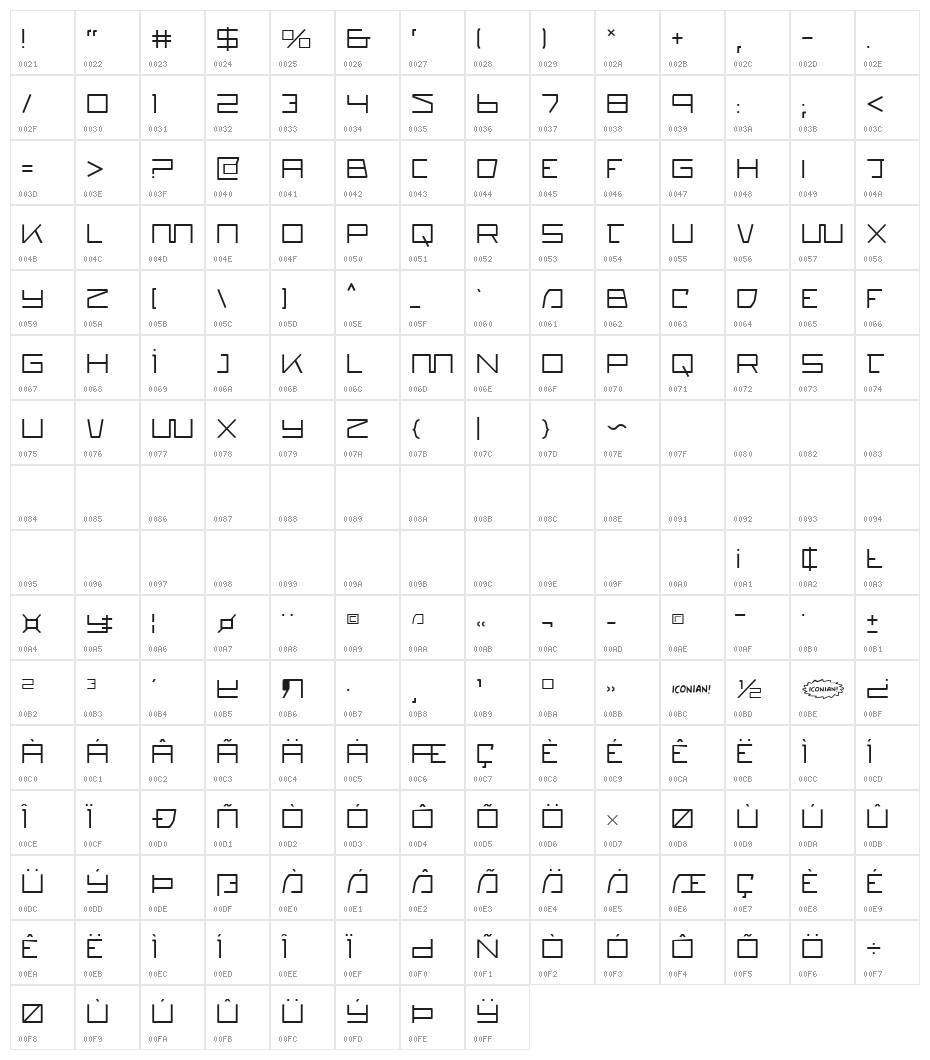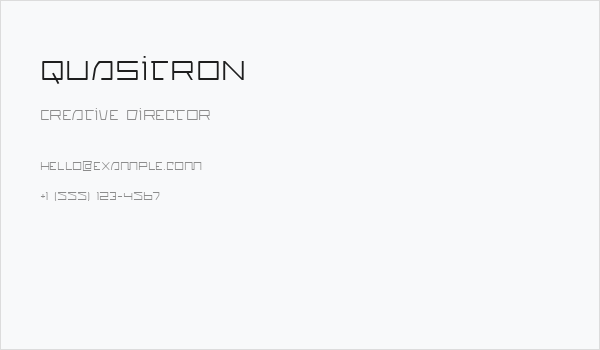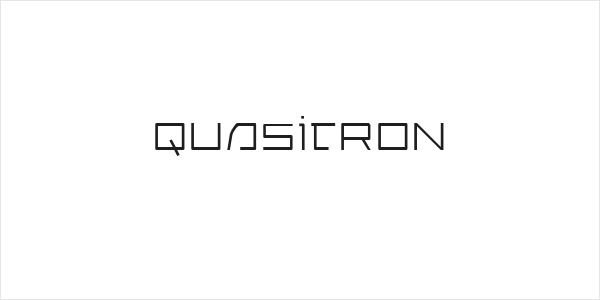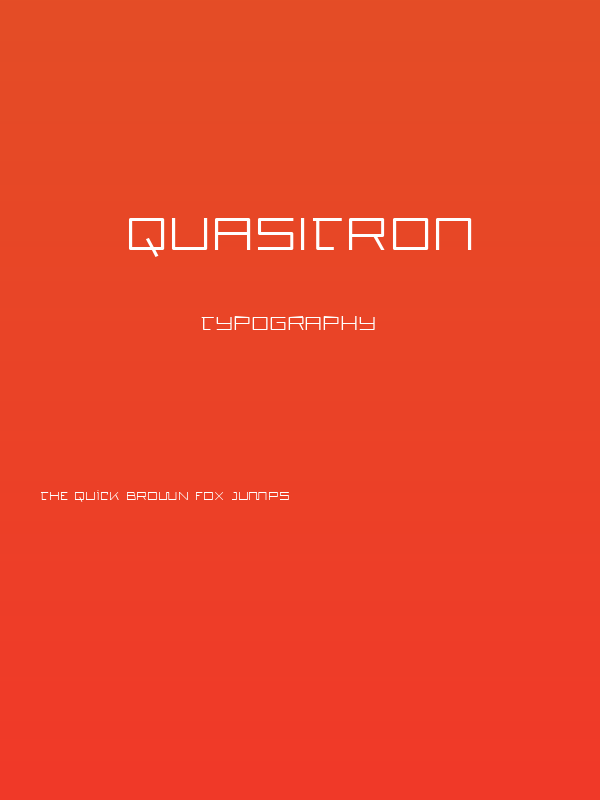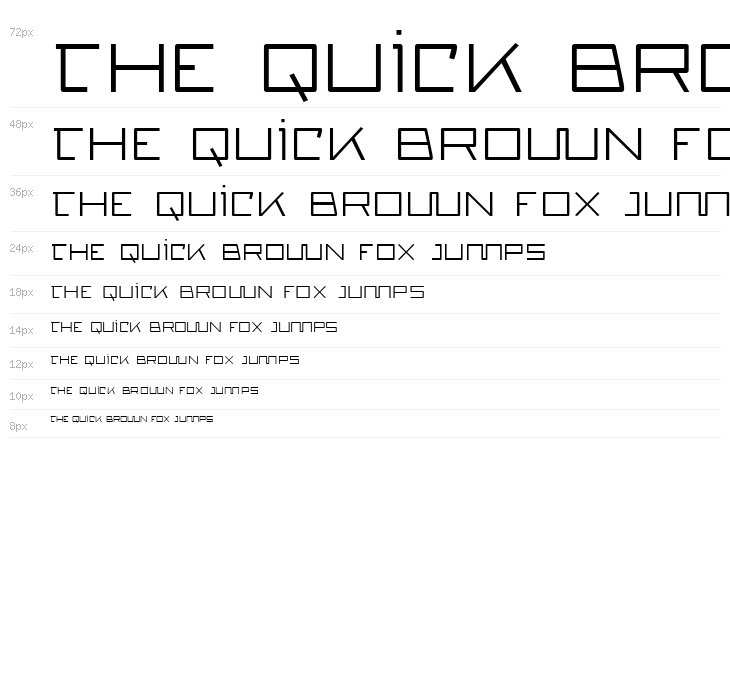
Quasitron Font
Quasitron Description
This font features a futuristic and geometric design, characterized by its clean, angular lines and minimalistic style. The uppercase letters are distinct with sharp edges and a uniform height, creating a cohesive and modern appearance. The lowercase letters maintain the geometric theme, with a slightly more compact form. Numbers are consistent with the overall design, offering clarity and precision. Special characters are crafted to match the angular aesthetic, ensuring a seamless integration with the rest of the character set. The font's structure is ideal for projects that require a contemporary and tech-inspired look.
Overall StyleFuturistic
Use CaseHeadlines, Logos, Digital Interfaces
Proposed ProjectsIdeal for technology branding, sci-fi themed designs, digital interfaces, and modern advertising.